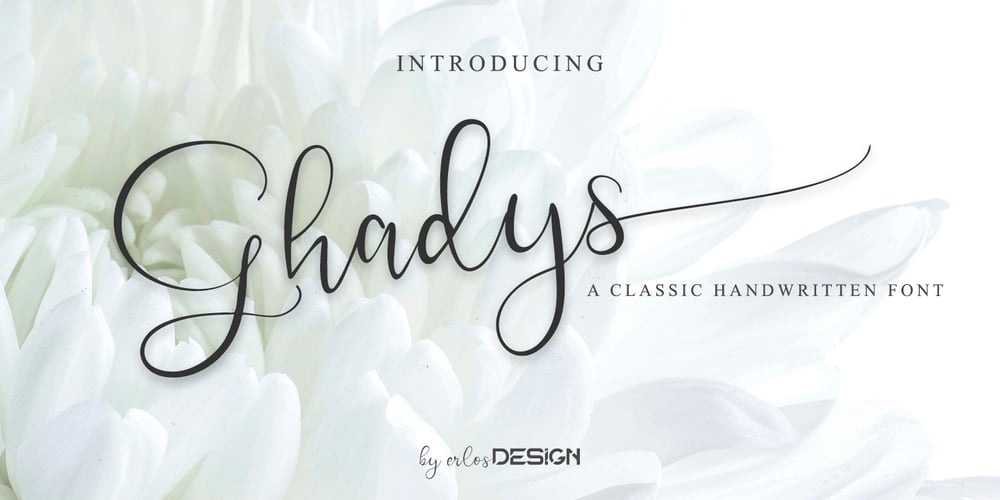
Ghadys Font Family was designed by Erlangga Suherman and published by ErlosDesign. Ghadys contains 1 styles and family package options. Ghadys is a sweet, romantic and timeless handwritten font. It looks stunning on wedding invitations, thank you cards, quotes, greeting cards, logos, business cards and every other design which needs a handwritten touch. This font is PUA encoded which means you can access all of the glyphs and swashes with ease! It features a varying baseline, smooth lines, gorgeous glyphs and stunning alternates.The file you will get is:• Works on PC & Mac• Simple installation• Can be accessed in Adobe Illustrator, Adobe Photoshop, Adobe InDesign, and even works in Microsoft Word.• Encoded PUA Character – Can be accessed completely without additional design software.Happy Crafting!